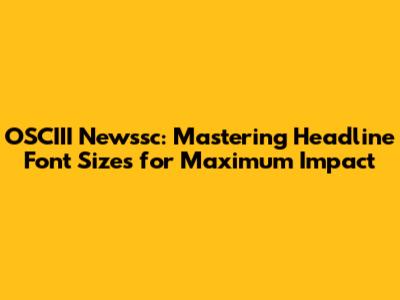
OSCIII Newssc: Mastering Headline Font Sizes For Maximum Impact
Hey guys! Ever wondered how to make your headlines pop and grab attention? Well, let's dive into the fascinating world of OSCIII Newssc and how to master headline font sizes! It's not just about picking a random number; there's a real art and science to it. Getting the right font size can be the difference between a click and a scroll-by. This guide will break down everything you need to know to create compelling headlines, from the basics to some pro tips. Ready to level up your headline game? Let's go!
Decoding OSCIII Newssc and Its Significance
First off, what's OSCIII Newssc? Think of it as a specific style, a particular look and feel, and a unique way of presenting information. Understanding the nuances of OSCIII Newssc is crucial before we even touch font sizes. It’s about more than just the text; it's about the entire visual experience you are trying to create. It may incorporate particular design principles like the usage of white space, color, imagery, and, most importantly, typography. When we talk about typography, font sizes are at the core of it. The OSCIII Newssc style often relies on a clear hierarchy. This is where headlines play a starring role. Your headline font size helps to establish that hierarchy. This helps the reader navigate your content easily. A good headline acts like a signpost guiding your readers to the important stuff. A weak headline, on the other hand, can lead to your content getting lost in the digital noise. The right headline instantly tells your readers what to expect. Using the right headline font size will immediately give the reader a sense of importance and the structure of the article. It allows them to quickly understand the main topics and key points. This immediate understanding is critical for keeping their attention in today’s fast-paced world. Think about it: how many articles do you quickly scan before deciding if they're worth your time? A well-crafted headline, with the right font size, is the key to getting that click and keeping them engaged. Getting OSCIII Newssc right is about more than aesthetics; it is about communication. It's about delivering your message with clarity and impact. With the right headline font sizes, you're not just writing text; you are crafting an experience. It sets the tone, defines the reading flow, and ultimately determines how your content is perceived and whether it achieves its goals. So, pay attention, and let's get those headlines looking their best.
The Psychology Behind Headline Font Size
Alright, let’s get a little psychological, shall we? Did you know that the headline font size you choose has a direct impact on how your audience perceives your content? It's all about how our brains process visual information. Large font sizes grab attention instantly. They signal importance and urgency. They make the reader stop and take notice, which is awesome. Smaller font sizes, on the other hand, often suggest supporting information or the body of your content. Understanding these psychological cues is essential to achieving your desired effect. The right headline font size will pull people in, while the wrong one might make them bounce. When you use a larger font size for a headline, it automatically creates a visual hierarchy. The reader instinctively knows that this is the main subject. This is super important because it helps them orient themselves and understand the context. This helps them navigate your content more efficiently. Think about the feeling you get when you see a big, bold headline. It's a statement. It's an invitation. A smaller, less prominent headline might feel more like a whisper. It's less assertive. You want to match the font size to the message you are trying to convey. If your headline is about a breaking news story, a large and bold font might be just what you need to signal urgency. If it’s a detailed explanation, maybe a slightly smaller, more elegant font size is appropriate. Consider using a slightly larger font size for headings like H1, and gradually decrease it for subheadings like H2 and H3 to show a clear hierarchy. It's about leading the reader on a journey, making the content easy to digest. Furthermore, the font you select plays a big role. Some fonts inherently appear larger or smaller than others, even at the same point size. So, the choice of the typeface adds a further psychological dimension to your headline's impression. Sans-serif fonts often feel more modern and accessible, while serif fonts can add a touch of formality and credibility. All of this combines to create an emotional connection with the reader. You are not just presenting facts. You are creating a visual experience that influences their perception and engagement. So, next time you are crafting a headline, take a moment to think about the psychological impact of your chosen font size. It's more impactful than you think.
Best Practices for Choosing Headline Font Sizes
Now for the real deal: choosing the right headline font sizes! The first rule: there's no one-size-fits-all answer. It all depends on your OSCIII Newssc design, the platform, and the content itself. Here’s a breakdown of some best practices to help you make informed decisions. Start by defining your design hierarchy. Which elements are most important? Your primary headline (H1) should always be the largest and most prominent. This tells readers immediately what the article is about. Think of it as the title of a book. Subheadings (H2, H3, etc.) should then follow a logical scale. Each subsequent level should be smaller than the one above, creating a clear visual structure. Consider your audience and their reading experience. Are they on mobile or desktop? People view things on mobile screens from a closer distance. This is why you need to consider that, and increase headline font sizes appropriately to maintain readability. Generally, a larger font size is needed on mobile. Readability is super important. Regardless of the platform, the headline must be easy to read and understand. Make sure there is enough contrast between the text and the background. Avoid complex fonts that are hard to read at smaller sizes. White space is your best friend. Don't be afraid to use it. Adequate spacing around your headlines allows them to breathe and stand out. It prevents the headline from getting lost in a cluttered layout. Experiment with different font sizes, and test them on various devices to find the optimal balance between visual appeal and readability. Remember, it's not just about the size itself. It's about the overall impact. Consistency is key. Once you've established your headline font sizes, stick with them throughout your content. This helps to create a professional and polished look. The use of a grid system can also be super helpful. It gives you a structure for aligning your headlines and other elements, ensuring a cohesive design. Don't forget to review your final design on a variety of devices and screen sizes to ensure the headlines are not too large or too small. Always aim for balance. Make sure your headlines are big enough to be noticed but not so big that they overwhelm the design. Ultimately, the best headline font sizes will depend on your specific needs and goals. However, by following these best practices, you can create headlines that are both visually appealing and effective.
Tools and Techniques for Font Size Optimization
Okay, guys, let’s equip you with some tools and techniques to help you nail your headline font size game! There are a bunch of different ways to get this right, from using web design tools to understanding the nitty-gritty of font sizes. First off, let’s talk about the tools. If you're using a website builder like WordPress, you'll often have built-in options for customizing your headlines. These can include setting the font size, font style, and even the line height. For more advanced control, you can use CSS (Cascading Style Sheets). CSS lets you precisely control the look of your headlines, from the font size to the color and spacing. If you’re not a coder, don’t worry. Many user-friendly tools are available, allowing you to visually adjust and preview your headlines without writing any code. Tools like Google Fonts can help you find and preview different fonts, letting you experiment with various sizes to see what works best for your content. When it comes to the techniques, one of the most important things is to test. Test everything on a variety of devices, including desktops, laptops, tablets, and smartphones. Make sure your headlines are readable and properly displayed on all screen sizes. Consider responsive design principles. Ensure your headlines adjust seamlessly to different screen resolutions. This is crucial for providing a great user experience on all devices. Another technique is to use relative units. Instead of using fixed pixel values for your font sizes, consider using percentages or em units. Relative units make your headlines scale more easily with the rest of your design. Always pay attention to the contrast. Make sure there’s enough contrast between the text color and the background so your headlines are easy to read. Experiment with different font weights. Bold fonts grab attention, but they can sometimes be overwhelming. Italic fonts can add emphasis. Use a range of font weights and styles to create visual interest. Get feedback from others. Ask your friends or colleagues to review your headlines and provide feedback on their readability and impact. Lastly, always keep learning and experimenting. Design trends change over time. What works today might not work tomorrow. Stay updated with the latest trends and techniques, and don’t be afraid to try new things. With these tools and techniques, you'll be well-equipped to create headlines that capture attention and engage your audience.
Common Mistakes to Avoid
Alright, let’s talk about some common mistakes that can completely ruin your headline font size game. Avoiding these pitfalls will help you create headlines that look fantastic and work for you. One of the biggest mistakes is using a font size that is too small. This makes your headlines hard to read, especially on mobile devices. Readers will be instantly turned off, and your bounce rate will skyrocket. The other extreme is using a font size that is too large. This can overwhelm your design. Your headlines will dominate the page and distract from the other elements. Balance is essential. Poor contrast between the text and the background is also a big no-no. It makes your headlines difficult to read. Make sure there’s enough contrast to avoid straining your readers’ eyes. Choosing a font that is not readable. Some fonts are beautiful but not practical for headlines. Select a font that is easy to read. This is super important to ensure your message gets across clearly. Another common mistake is a lack of consistency. If you use different font sizes or styles for your headlines, it creates a messy and unprofessional look. Keep a consistent style throughout your content to enhance your design. You want your readers to focus on the message, not the design flaws. Don't underestimate the importance of spacing and alignment. Headlines that are too close to the surrounding text, or are not properly aligned, look crowded and unappealing. You need to make sure your headline has enough breathing room. Finally, a failure to test your headlines across different devices and screen sizes. Always test your headlines on various devices to ensure they are readable and properly displayed. When working with OSCIII Newssc, it is essential to adhere to these basic principles of font size usage.
Conclusion: Mastering Headline Font Size for OSCIII Newssc
So there you have it, guys! We've covered the basics, psychology, best practices, tools, techniques, and common mistakes of headline font sizes in OSCIII Newssc. Remember, it's not just about picking a random number. It's about creating a visual experience. It's about communicating your message clearly and effectively. By following these guidelines, you can create headlines that grab attention, engage your audience, and drive results. Keep experimenting, keep testing, and always strive to improve. Your headlines are the first impression. Make sure they count! Happy designing! Make sure to keep up with the latest trends and innovations.